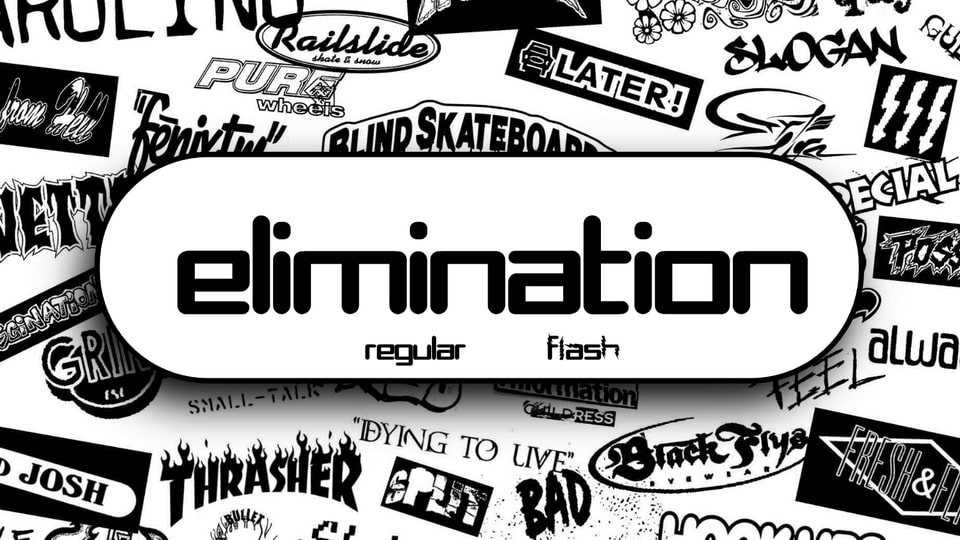
Download GO Elimination font, a funky and weird typeface inspired by skate culture. Griptype is an attempt to bring the ease and serenity of this culture to the world of typography.